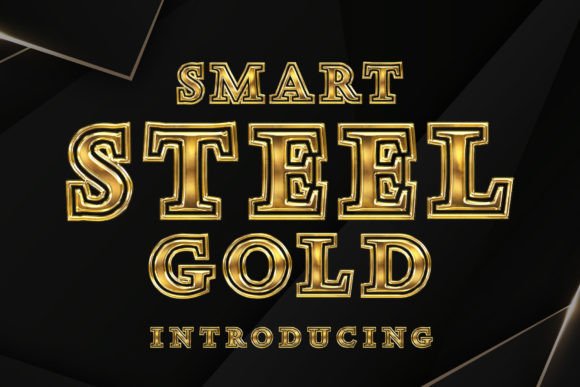
Introducing Smart Steel Gold, the newest addition to our colorful font family. Created by the talented designers at Fox7, this font is more than just a beautiful typeface. Smart Steel Gold is a strong and incredibly cool gold color font that will add a touch of elegance and sophistication to any project.
Whether you're creating a publication, designing a logo, printing business cards, or even printing on t-shirts, Smart Steel Gold is the perfect choice. With its bold and stylish appearance, this font is sure to catch the eye of anyone who sees it.
But it's not just about looks. Smart Steel Gold is a versatile font that can be used in a wide variety of contexts. It's perfect for formal occasions, but also has a playful side that makes it suitable for more casual designs.
Smart Steel Gold is a font that you'll be proud to have in your library. It has the potential to take any creation to the next level, and will help you stand out from the crowd. So why settle for boring and uninspired fonts when you can have something truly special?